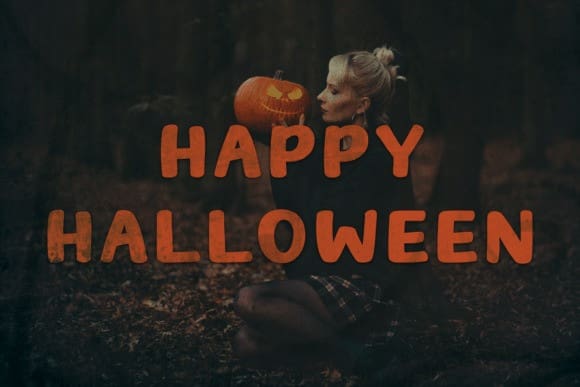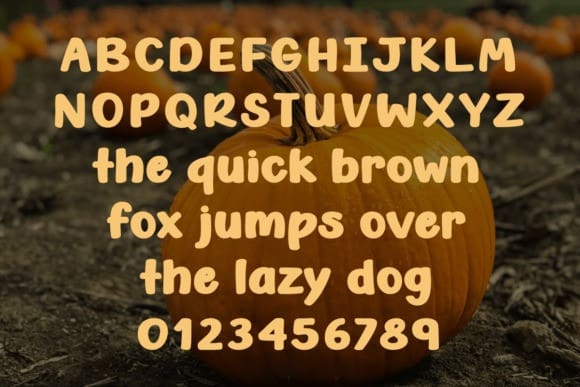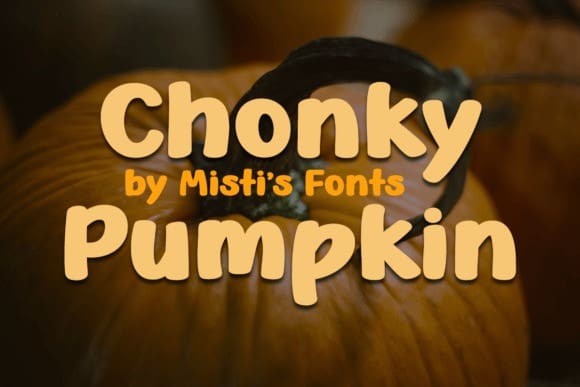
Chonky Pumpkin Font
Chonky Pumpkin Font is a bold, handwritten font that captures the cozy, playful spirit of Autumn and Halloween. Its thick, chunky letters add charm to seasonal projects, from spooky invitations to festive decor. Perfect for adding a touch of whimsy and warmth!